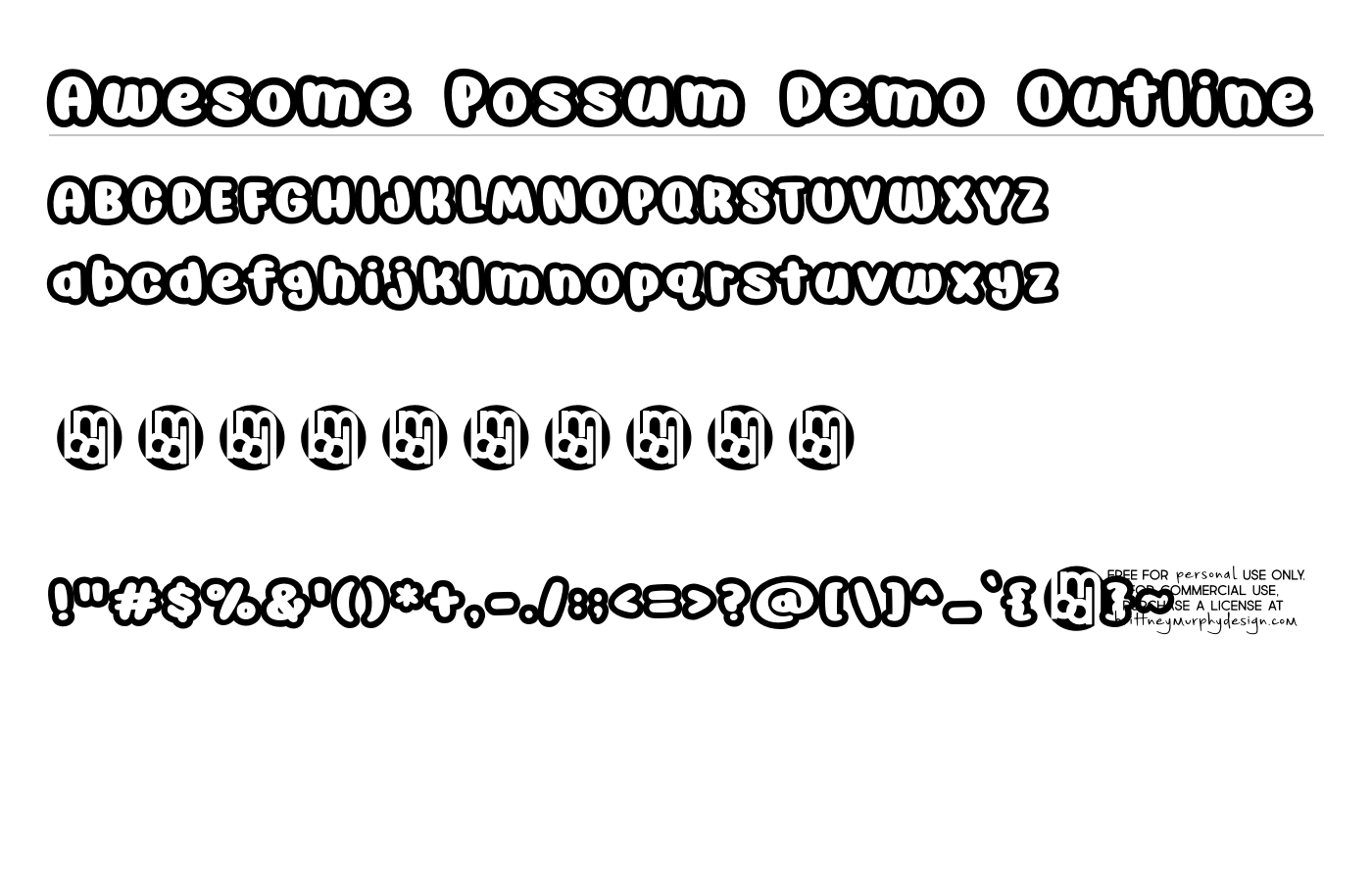
Awesome Possum Demo is a playful, rounded sans serif font with a bold weight and friendly outline style that creates a fun, cartoon-like appearance. Its thick, even strokes and bubbly letterforms give it a casual and inviting personality, making it ideal for children’s books, informal branding, posters, and creative projects that seek a lighthearted tone. This font works best in headlines and display text where its charm and readability can shine.
Awesome Possum Demo Font
About Awesome Possum Demo Font
| Font family | Awesome Possum Demo Font |
| Designer | Brittney Murphy |